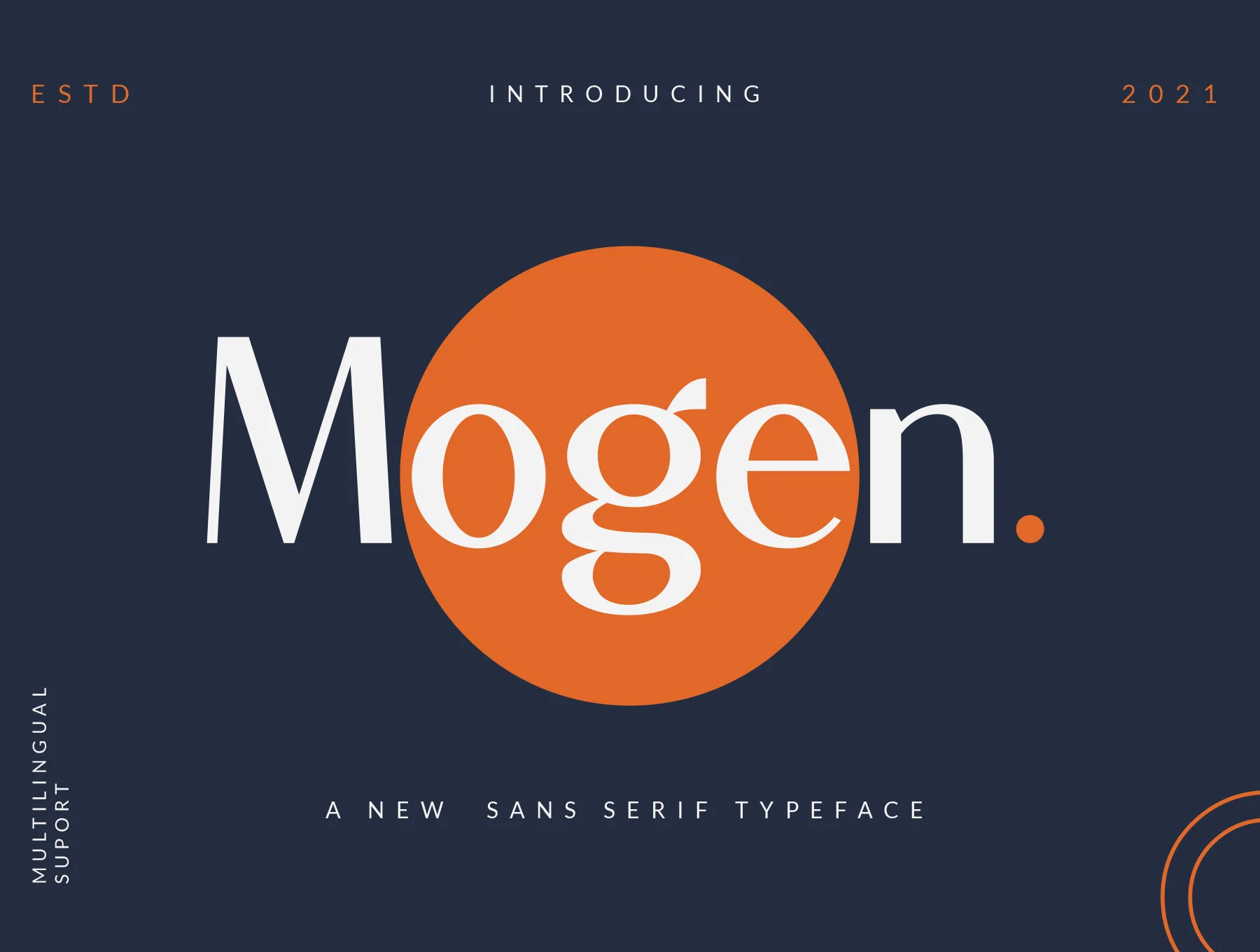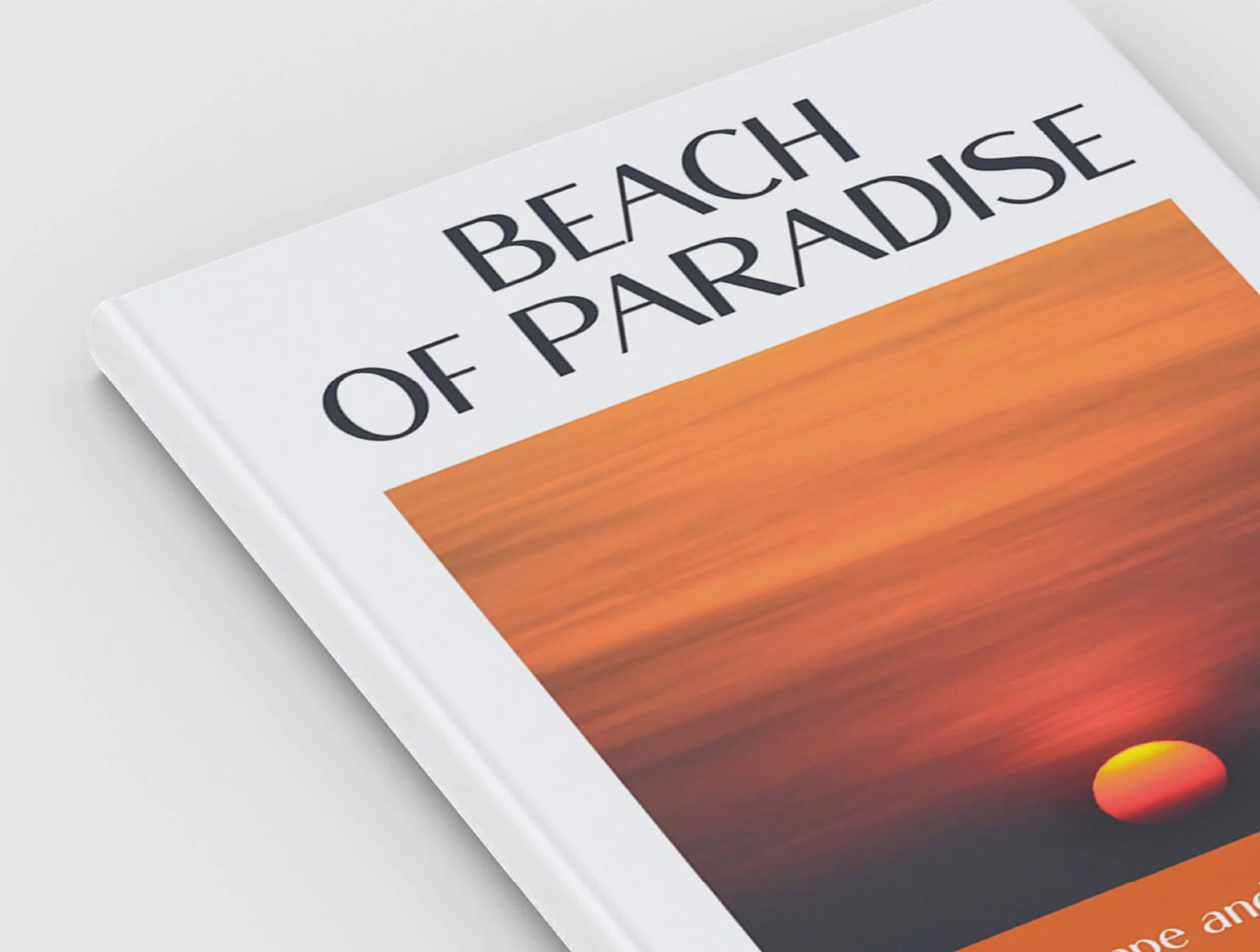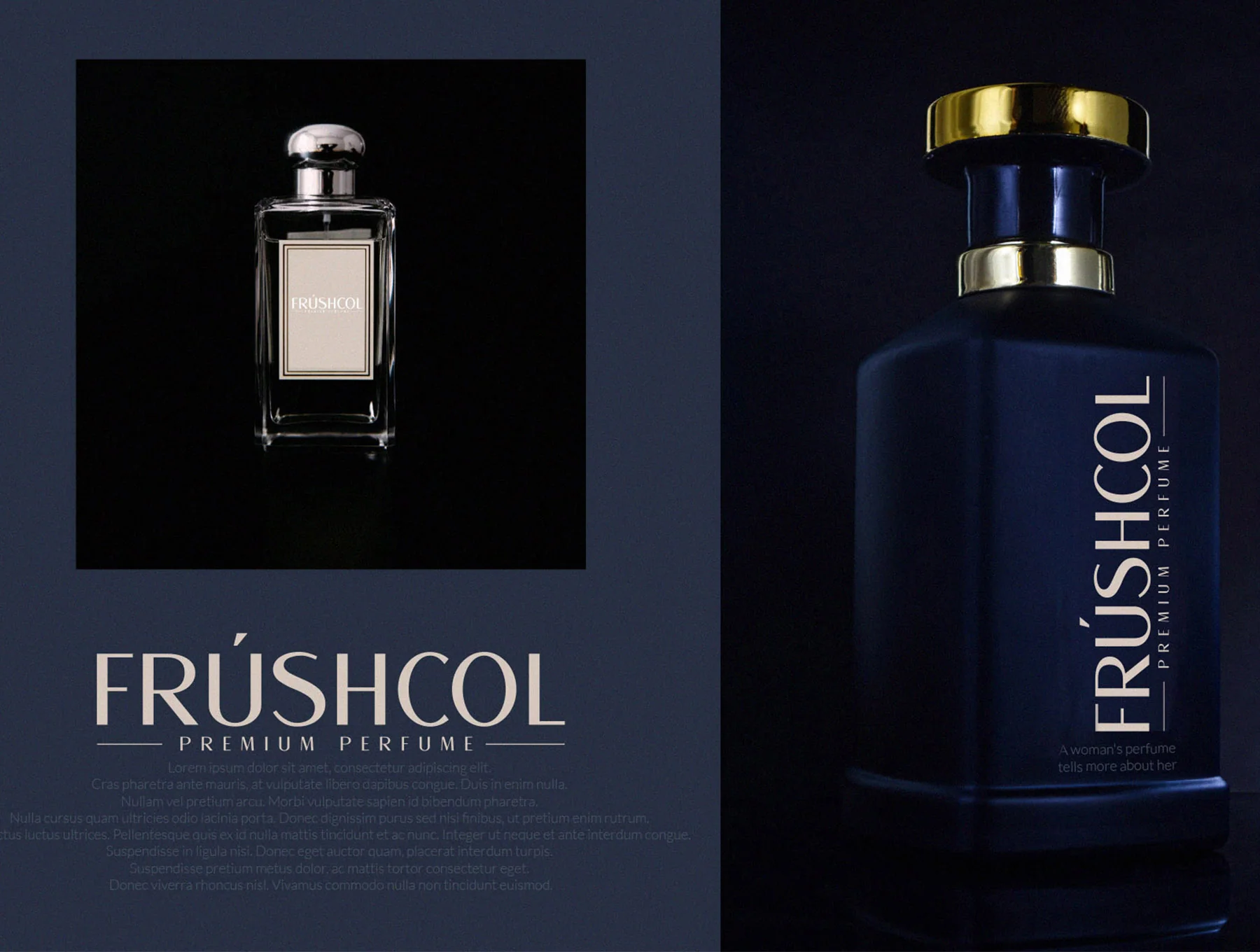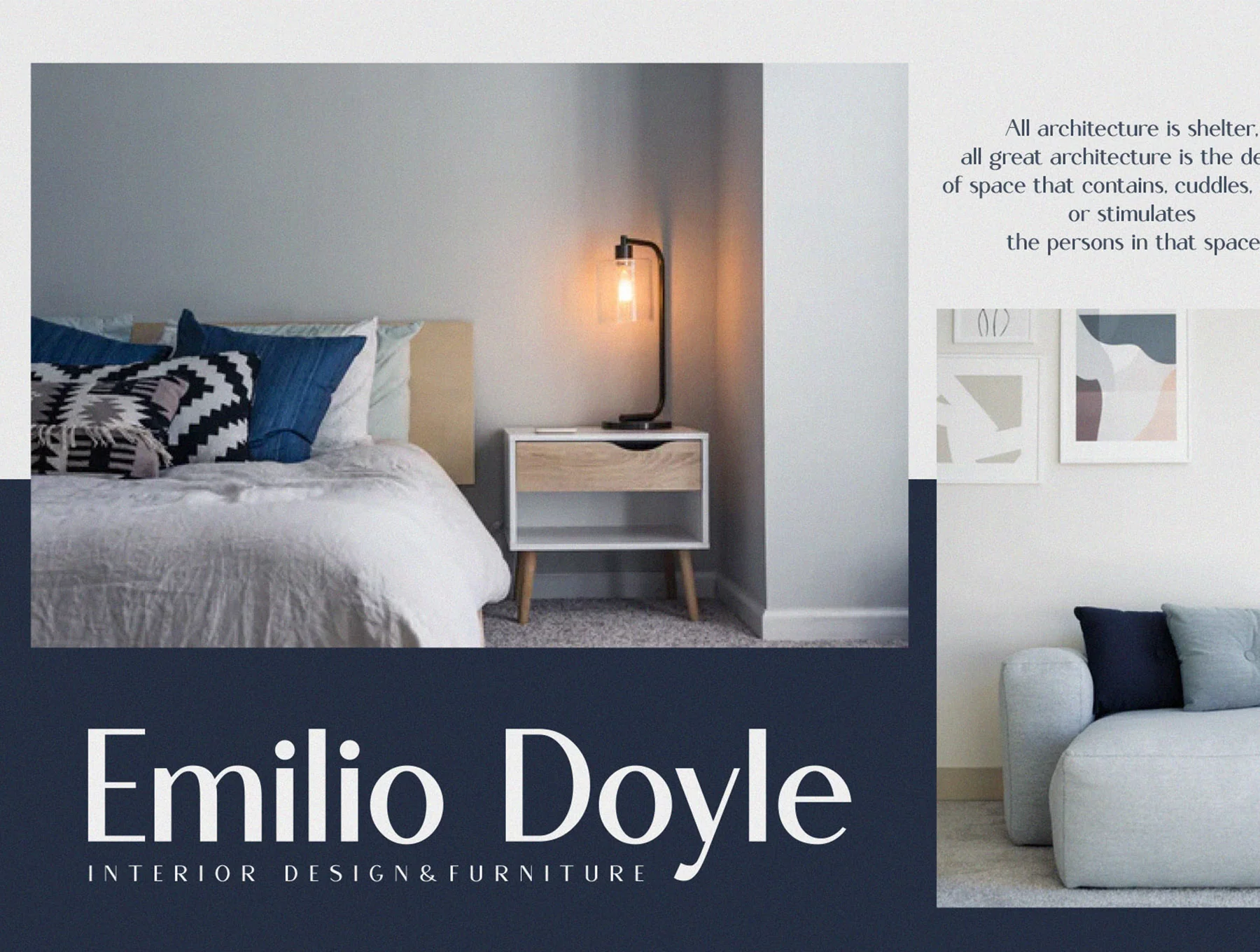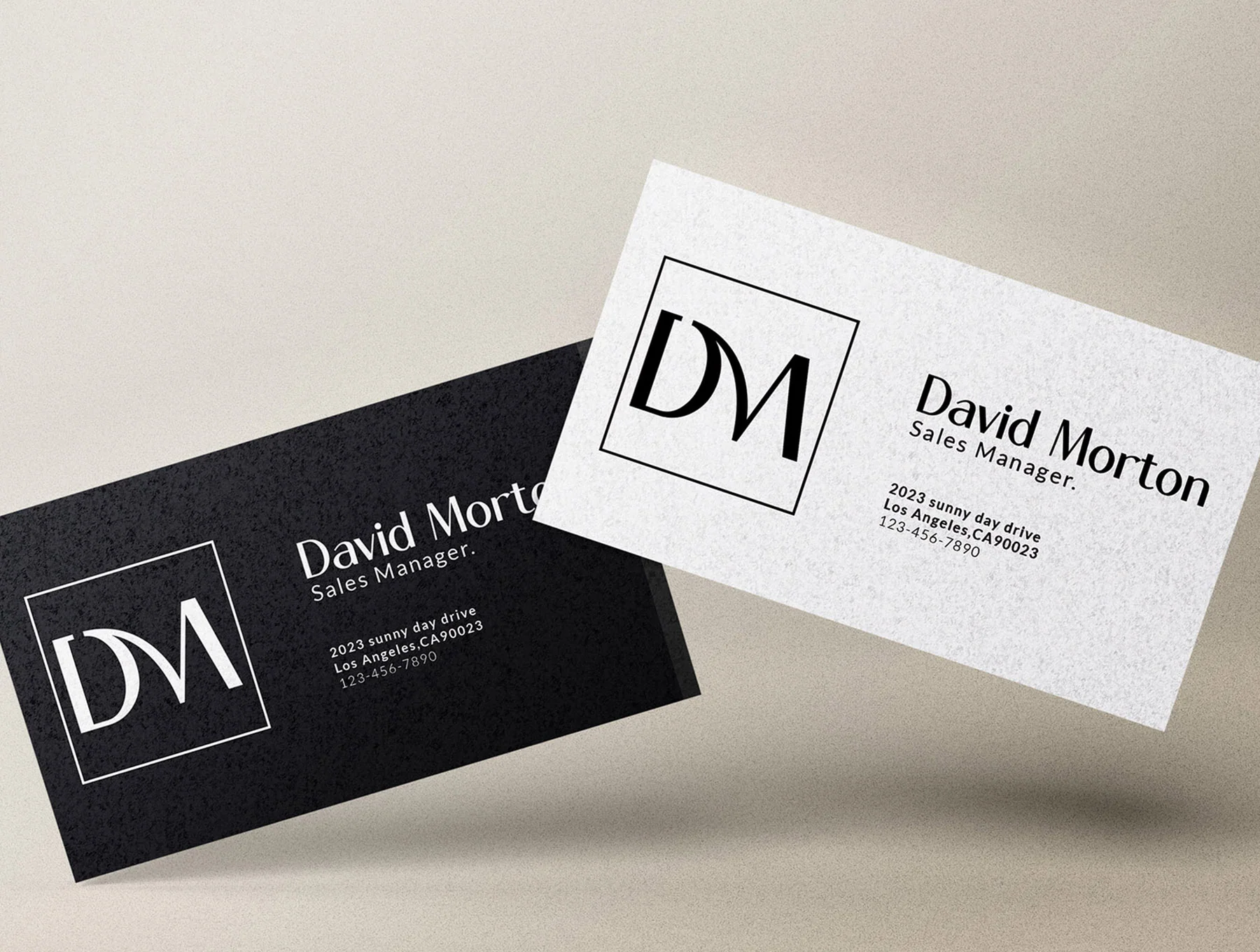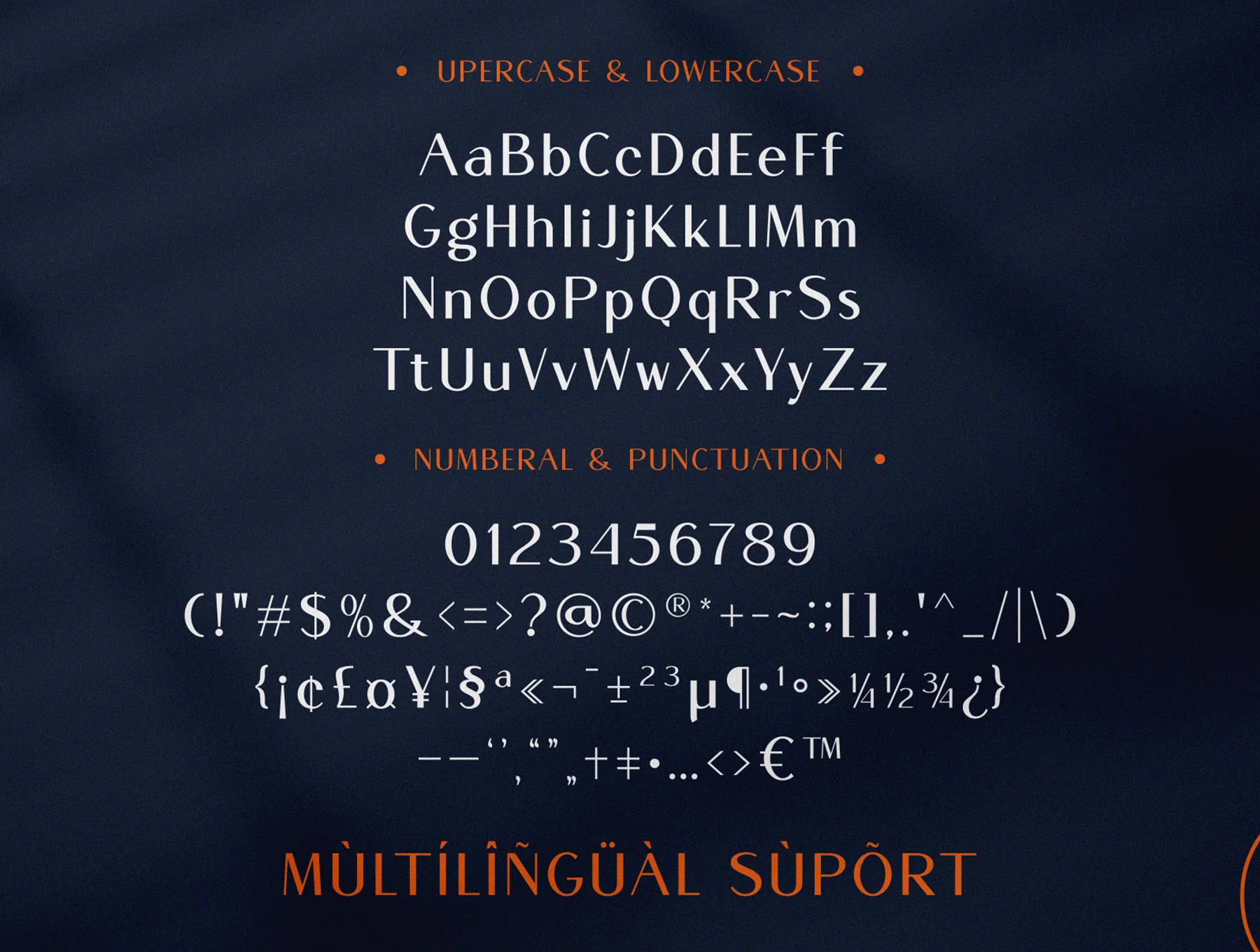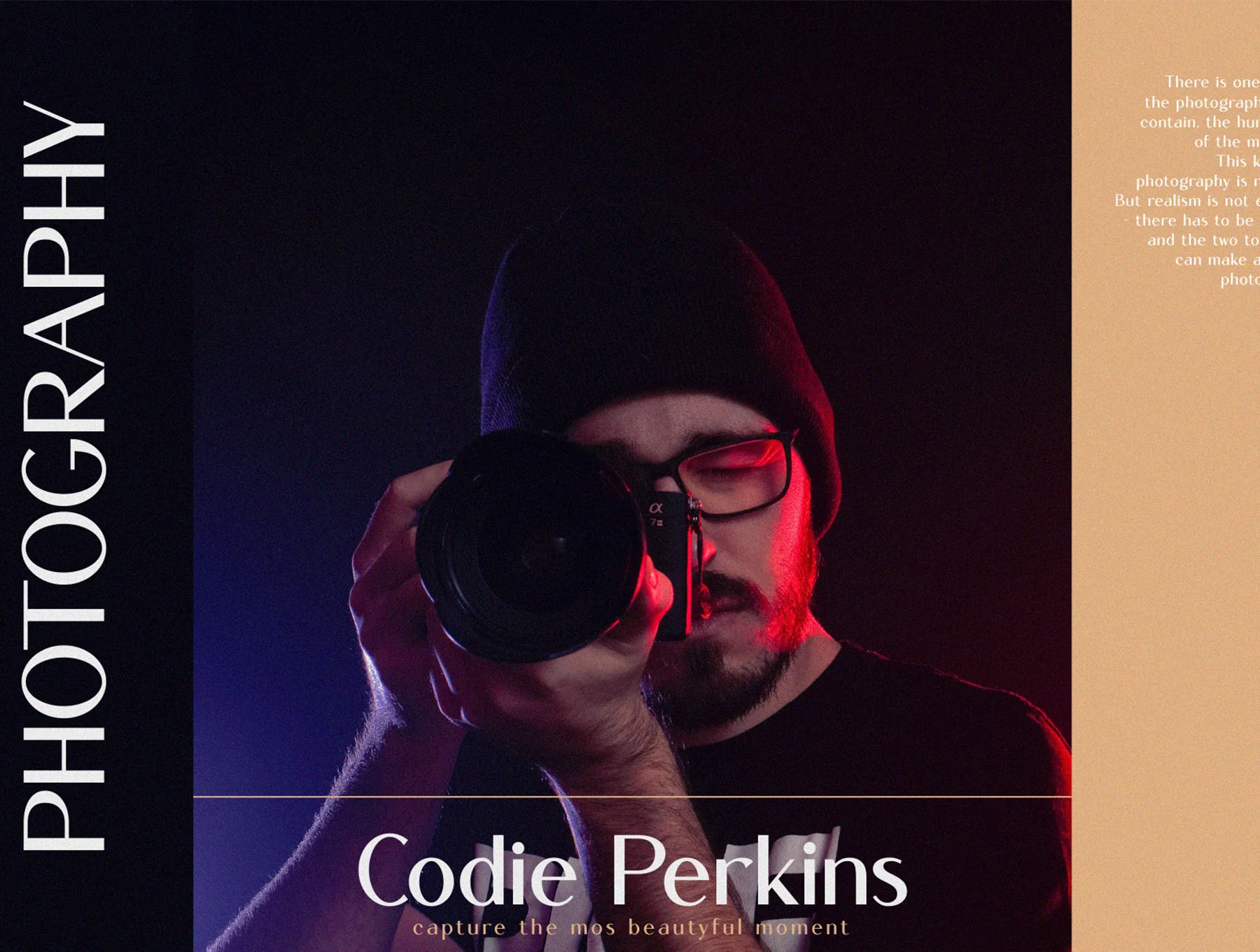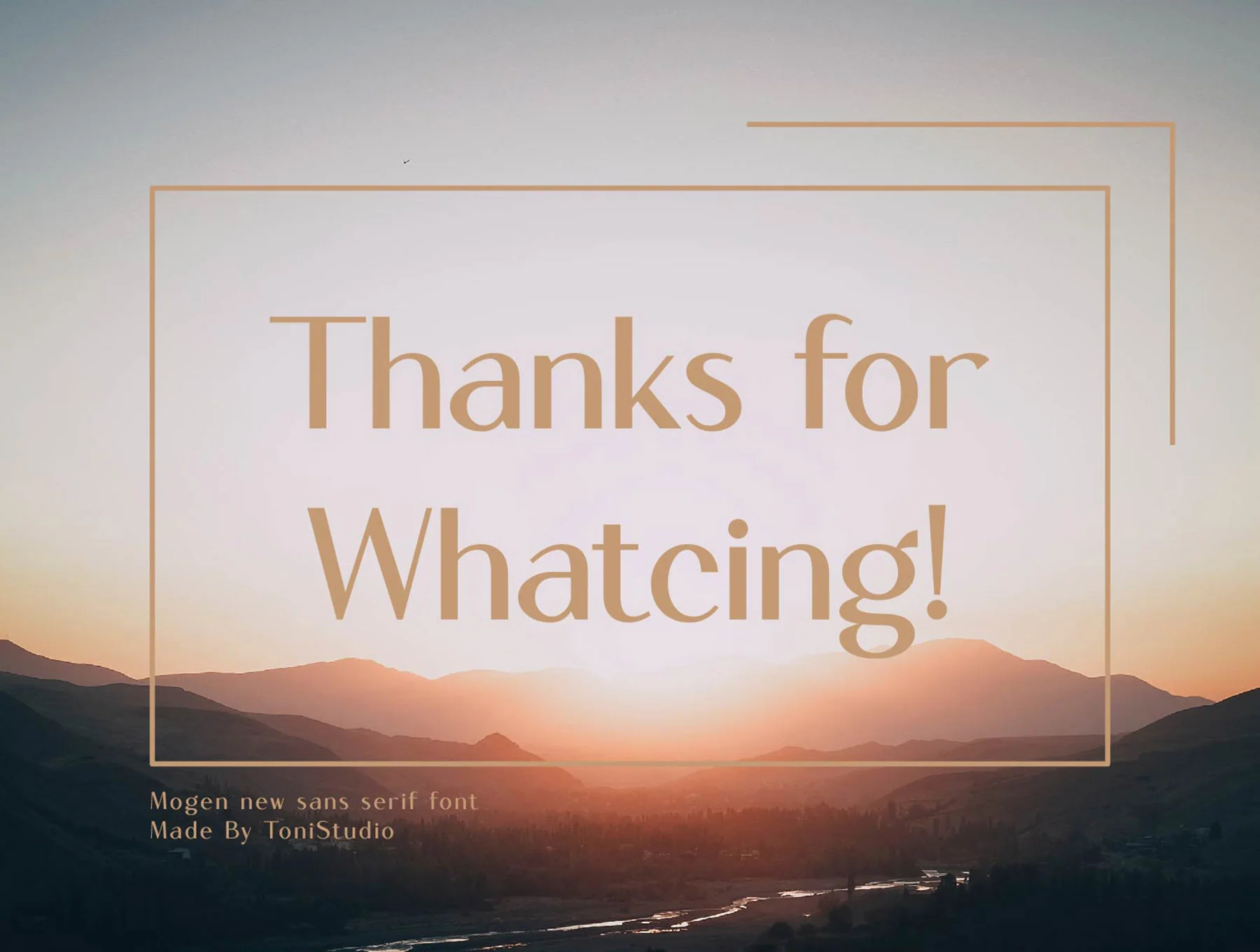
Mogen_a new sans serif typeface
Mogen, a fresh sans serif font
Mogen is a fresh minimalist typeface with refined, graceful forms and a polished modern character. Its balanced letter proportions combine contemporary style with a subtle rational structure, making it ideal for editorial, branding, corporate, web, and UI design. Includes uppercase, lowercase, numerals, punctuation, multilingual accents, plus TTF, OTF, and WOFF files.